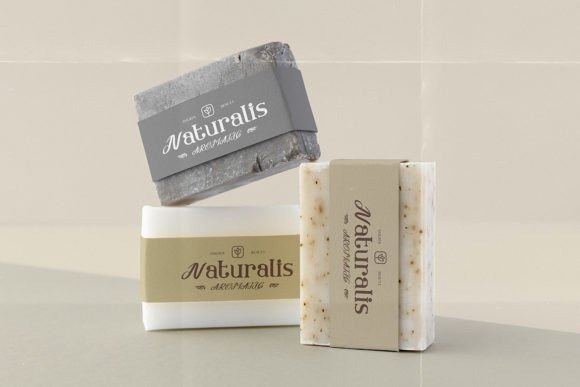
Younker Font
Introducing Younker Serif Font is a mixed serif and script font.
No matter the topic, this font will be an incredible asset to your fonts’ library, as it has the potential to elevate any creation.